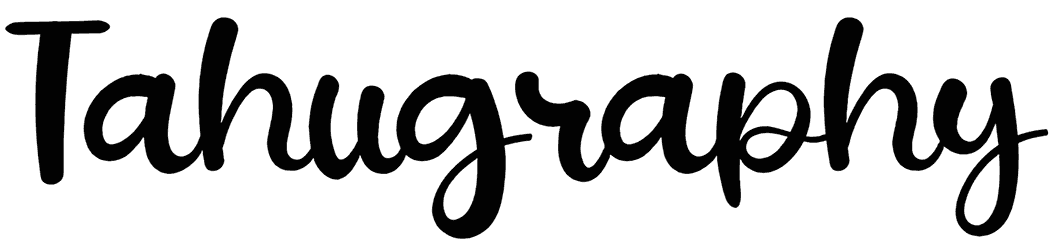
Tahugraphy Font
We are presenting you our beloved script font, Tahugraphy, which comes with a complete set of characters. It has a bold texture and brings a happy and playful feel to your design. So don’t doubt and embrace its organic, handcrafted touch. It’s an ideal choice for social media, branding projects, product packaging, book covers, and advertising goals.